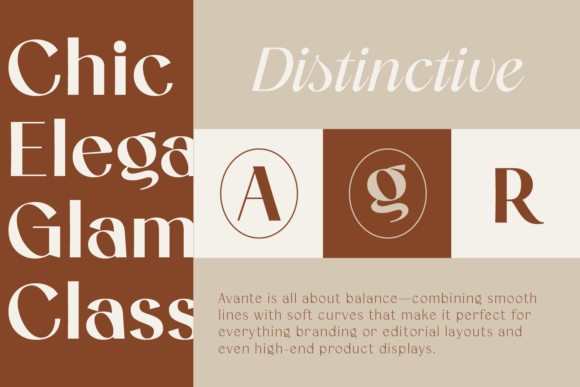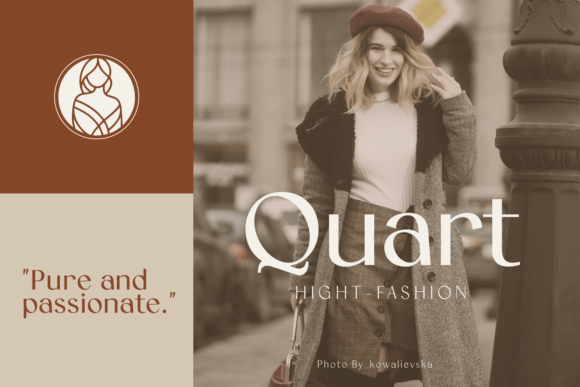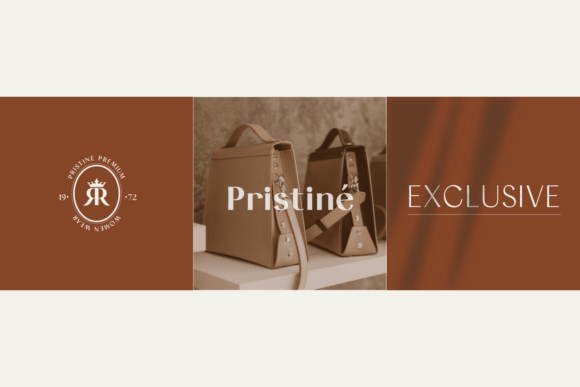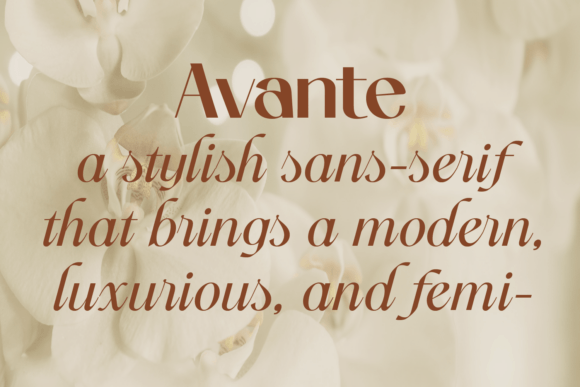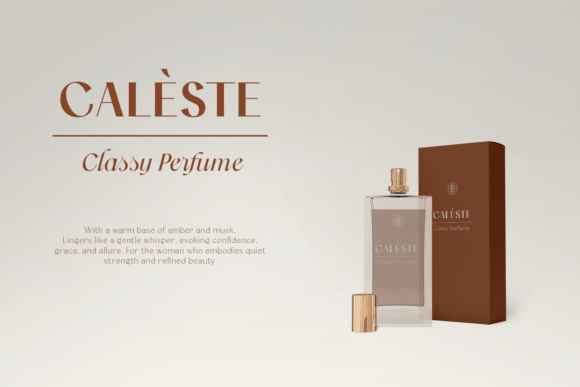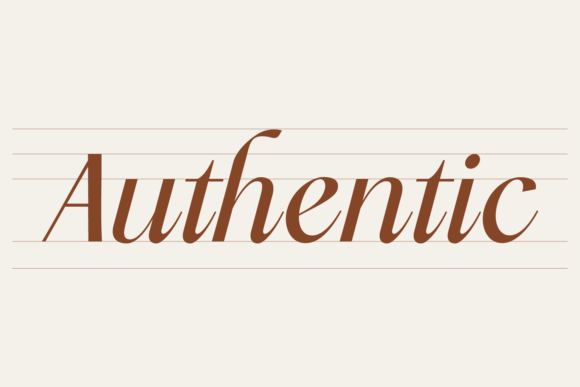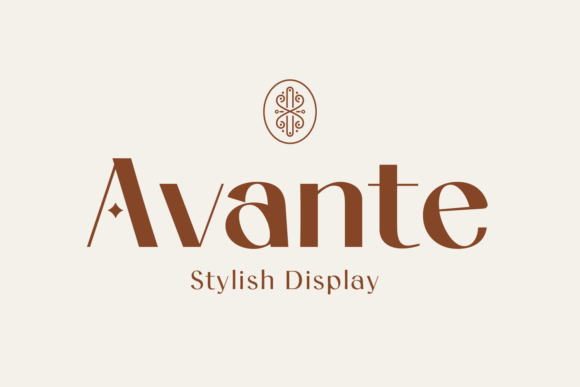
Introducing Avante Font: Elevate Your Designs with Elegance and Sophistication
In the world of typography, fonts play a crucial role in conveying the tone and personality of a design. For designers and crafters seeking to add a touch of luxury and sophistication to their projects, Avante Font is an excellent choice. This sleek, stylish sans-serif font is designed to bring a modern, luxurious, and feminine vibe to any design, making it perfect for high-end applications.
The Avante Font Family: Versatility at Its Best
Avante Font comes in four unique styles: Extra Light, Regular, Bold, and Italic. This range of styles provides designers with the flexibility to experiment with different looks and feels, ensuring that their projects stand out from the crowd. Whether you’re working on a chic logo, a classy magazine layout, or elegant packaging, Avante Font offers the perfect combination of balance and elegance.
Design Characteristics: Balance and Elegance
Avante Font is all about balance, expertly combining smooth lines with soft curves to create a polished yet warm aesthetic. This balance makes it an ideal choice for a variety of design applications, including branding, editorial layouts, and high-end product displays. The font’s sleek and stylish appearance ensures that it will elevate any project, adding a touch of sophistication and luxury.
Perfect for High-End Designs
Avante Font is specifically designed for high-end designs, making it perfect for projects that require a luxurious and elegant feel. Its versatility and range of styles ensure that it can be used in various applications, from corporate branding to editorial layouts. For designers and crafters seeking to create a lasting impression, Avante Font is an excellent choice.
Applications of Avante Font
Avante Font’s versatility makes it suitable for a wide range of design applications, including:
- Branding: Create a luxurious and sophisticated brand identity with Avante Font, perfect for high-end companies and products.
- Editorial Layouts: Add a touch of elegance to magazine layouts, newspapers, and other editorial projects with Avante Font’s sleek and stylish appearance.
- Product Displays: Showcase high-end products in style with Avante Font, perfect for luxury packaging and displays.
- Logo Design: Create a chic and sophisticated logo with Avante Font, ideal for companies seeking to establish a luxurious brand identity.
Why Choose Avante Font?
Avante Font offers a unique combination of style, versatility, and elegance, making it an excellent choice for designers and crafters seeking to elevate their designs. Here are just a few reasons why Avante Font stands out:
- Modern and Luxurious: Avante Font brings a modern, luxurious, and feminine vibe to any design, perfect for high-end applications.
- Versatile: With four unique styles, Avante Font offers the flexibility to experiment with different looks and feels.
- Elegant: Avante Font’s sleek and stylish appearance ensures that it will add a touch of sophistication and luxury to any project.
Avante Font is a stylish and elegant sans-serif font designed to bring a modern, luxurious, and feminine vibe to any design. With its range of styles, versatility, and elegant appearance, Avante Font is perfect for high-end designs, branding, editorial layouts, and product displays. For designers and crafters seeking to elevate their projects and create a lasting impression, Avante Font is an excellent choice.